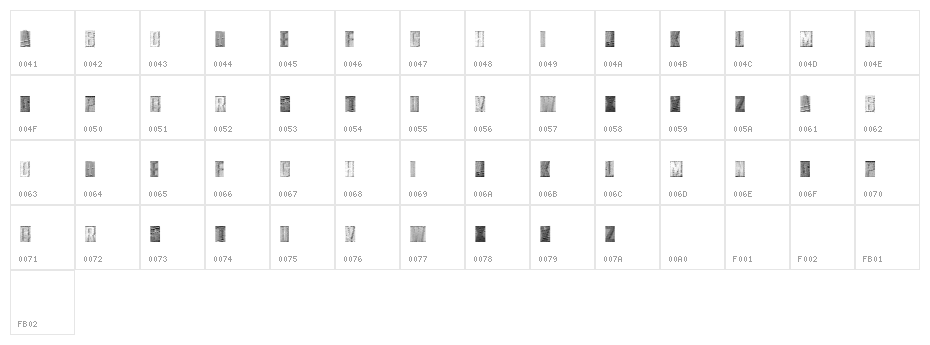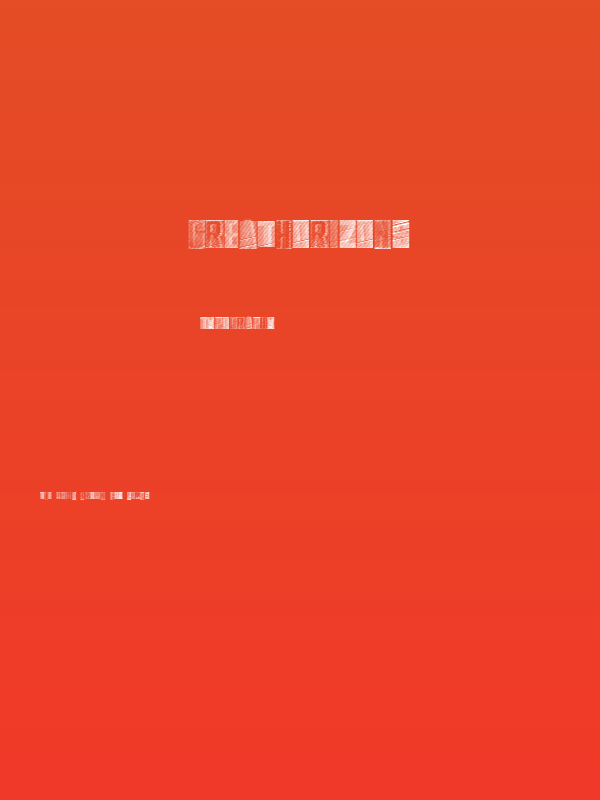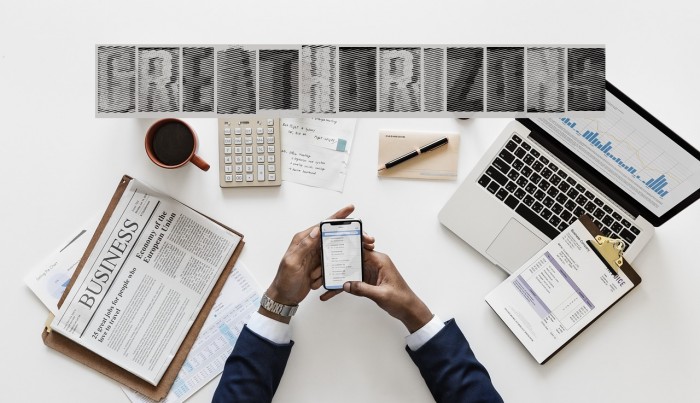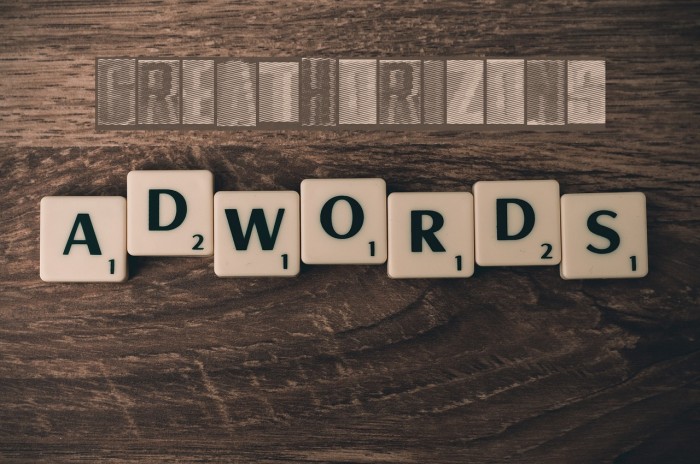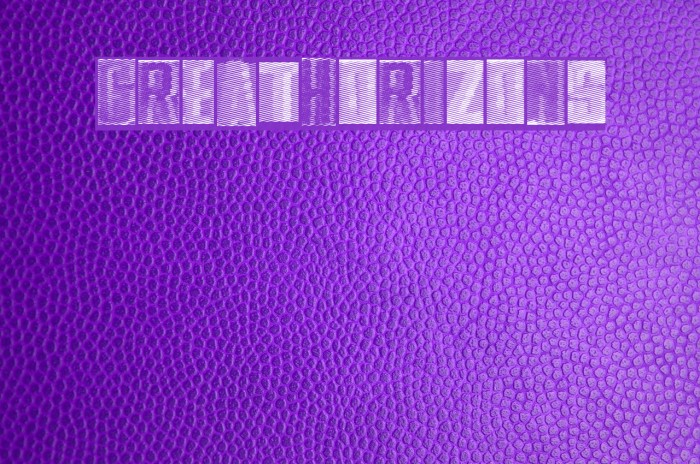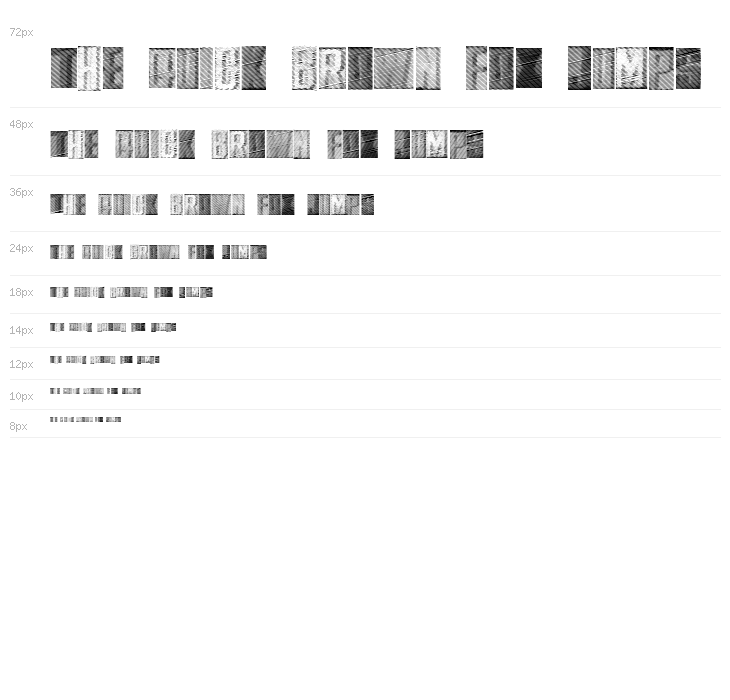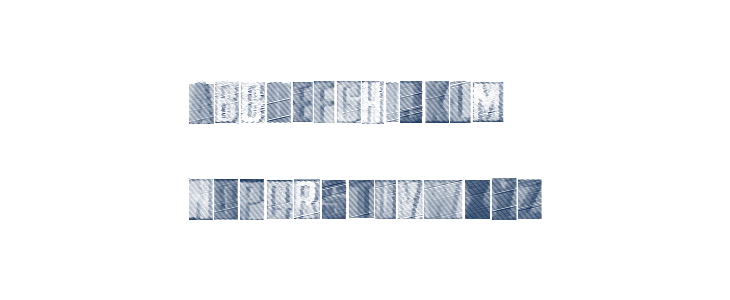
GreatHorizons Font
GreatHorizons Description
This font features a unique, textured design that gives each character a distinct, hand-drawn appearance. The letters are bold and blocky, with a consistent width that makes them highly legible. The texture resembles a series of diagonal lines or hatching, adding depth and visual interest to the characters. This style is reminiscent of vintage or retro designs, making it suitable for projects that aim to evoke a sense of nostalgia or artistic flair. The uppercase and lowercase letters maintain a uniform style, ensuring consistency across different text elements. The numbers and special characters are designed with the same attention to detail, providing a cohesive look throughout.
| Proposed Projects | Ideal for posters, album covers, branding materials, and any project seeking a retro or artistic touch. |